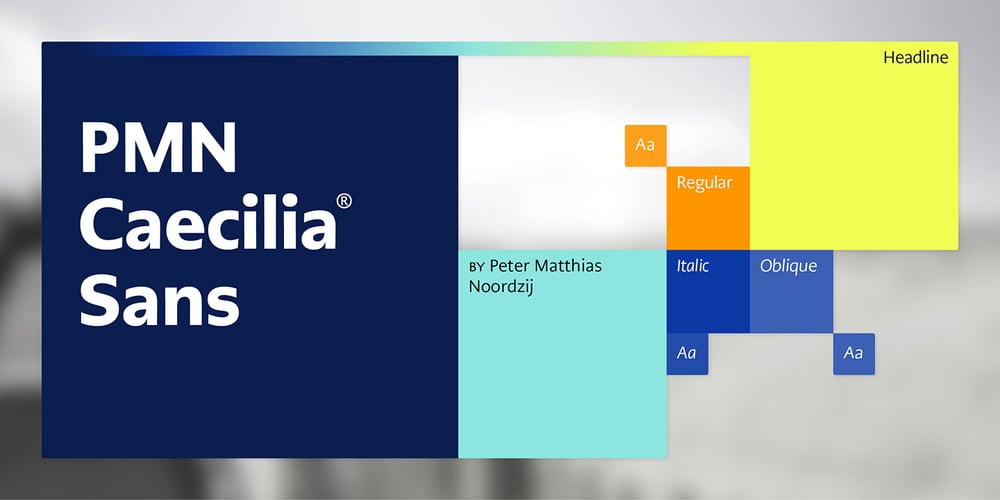
PMN Caecilia Sans
PMN Caecilia Sans font
PMN Caecilia Sans Font Family was designed by Peter Matthias Noordzij and published by Monotype. PMN Caecilia Sans contains 42 styles and family package options. Few projects are outside the range of PMN Caecilia® Sans. Drawn specifically for on-screen imaging, the family benefits from a large suite of weights, each with several stylistic variations. This is a design ideally suited to building digital interfaces, complex websites, apps, games, kiosks, HTML ads and large-scale brand identities. “My goal was to create a, friendly, versatile, ageless, yet discerning typeface family that will serve the needs of many users,” says Peter Matthias Noordzij. the typeface’s designer. “It is not intended to be eye-catching, but generous: enabling numerous visual and typographical expressions.” The use of Noordzij’s earlier design, PMN Caecilia, in Amazon’s Kindle® wireless reading devices, gave him the opportunity to study the behavior of the slab serif typeface in an on-screen environment. Although based on his earlier design, Noordzij incorporated fundamental changes to optimize PMN Caecilia® Sans’ digital performance. While PMN Caecilia has proven to be a steadfast serif typeface in print and on screen, the addition of a sans serif counterpart gives designers more flexibility when creating complex hierarchies. The combination of serif and sans serif makes the PMN Caecilia family a good choice for everything from print editorial projects to complicated web sites. A broad range of typefaces pair well with PMN Caecilia Sans. Humanist serif typefaces, such as Agmena™, Dante®, and Frutiger® Serif, set up dynamic typographic harmony, while designs like ITC New Veljovic™ Masqualero™ and Perpetua®, will create a striking counterpoint. And, of course, PMN Caecilia is a natural design partner – as are other slab serif typefaces, like the Aptifer™ Slab, Joanna® Nova and Soho® families.